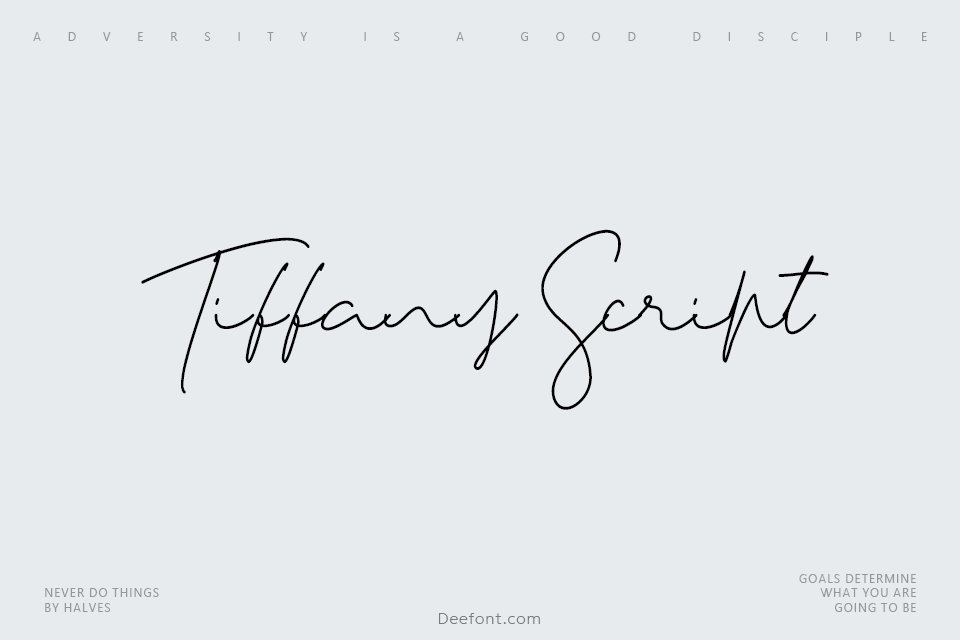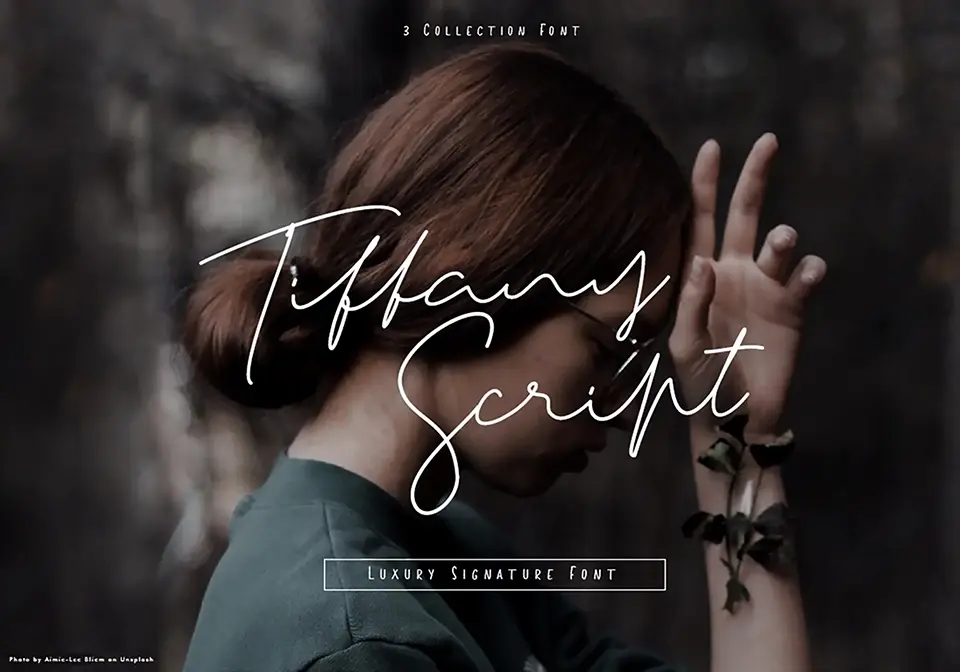
Tiffany Script Font
Tiffany Script is an elegant handwritten script font designed by Ardyana Putra of Ardyana Types. Featuring natural representation as a handwritten construction with simple, straightforward, and beautiful character, this font is perfect for creating signatures, brand designs, and distinctive logo applications. With 104 glyphs and multiple style variations, Tiffany Script excels in watermarks, company logos, quotes, album covers, and business cards. The font includes 132 ligatures across two types to ensure seamless letter connections, adding a luxurious and sophisticated touch to creative projects. Its charming and elegant aesthetic makes it ideal for designers seeking to elevate their work with authentic handwriting appeal.